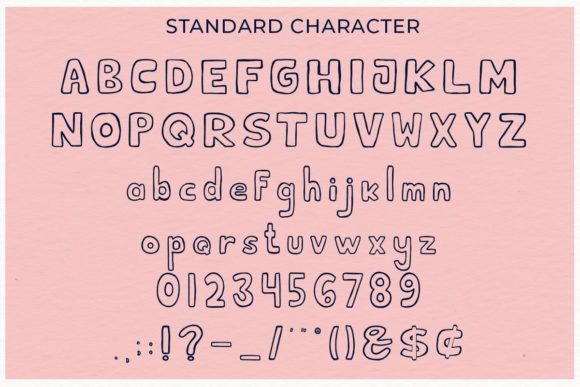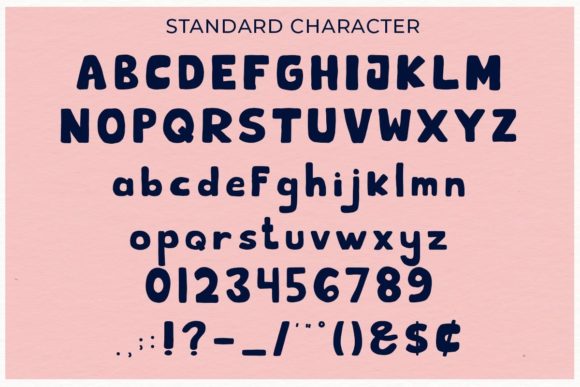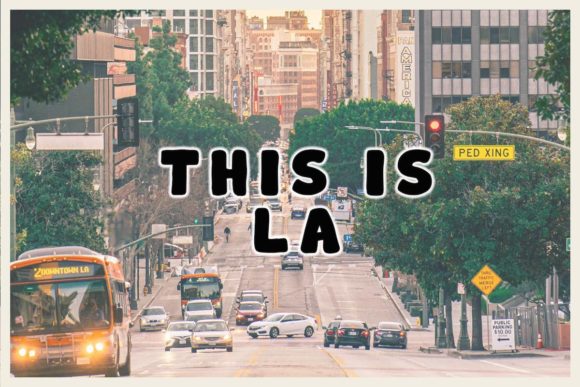
Introduction to Pizza & Soda Font
Imagine you’re working on a new design project, and you need a font that screams fun and bold. You’re brainstorming ideas, sipping your favorite soda, and suddenly, the perfect title pops into your head. But, you can’t quite find the right font to match your creative vision. That’s where the Pizza & Soda Font comes in – a game-changing design resource that’s sure to elevate your project to the next level.
This high-quality font is perfect for designers looking to add a touch of personality to their work. With its chunky characters and transparent background, it’s ideal for creating eye-catching titles, headlines, and banners that demand attention. And the best part? You can download it for free, making it an absolute must-have for any creative project.
Key Features of Pizza & Soda Font
- High-quality design resource perfect for creative projects
- Unique, hand-drawn style with a transparent background for easy layering
- Perfect for branding, logos, and creative projects requiring a playful touch
Honest Review: Pizza & Soda Font
I recently stumbled upon the Pizza & Soda Font, and I must say it’s a great addition to any design resource library. The font is a free download, which is always a bonus, and the quality is top-notch.
What works well is the font’s versatility. It’s perfect for a creative project that requires a fun, casual vibe. The font comes in a range of styles, from bold and playful to elegant and refined. The transparent background option also makes it easy to layer with other design elements.
Here are some of the font’s key features:
- Multiple styles to choose from
However, I did notice a few limitations ⚠️:
- The font may not be suitable for formal or professional projects
- The range of styles is limited compared to some other fonts
Overall, I’m impressed with the Pizza & Soda Font. It’s a great resource for designers looking to add a touch of whimsy to their creative projects. With its high quality and versatility, it’s definitely worth considering for your next design project. ✨
Pizza & Soda Font
Tips for Getting the Most Out of Pizza & Soda Font
Experiment with different font styles and weights to create visually appealing designs. Use the transparent background feature to add depth and interest to your designs.
Pizza & Soda Font is suitable for a variety of creative projects, including:
- Restaurant menus and branding
- Food and beverage packaging
- Advertising and marketing materials
- Graphic design and visual identity projects
Compared to Pizza & Soda Font, Great Vibes Font has a more whimsical and carefree feel, making it suitable for projects that require a touch of personality. When to use: Use Great Vibes Font for projects that need a fun, laid-back, or vintage feel.
Lato Font is a clean and elegant sans-serif typeface that’s perfect for creative projects, especially those with a sophisticated or luxurious aesthetic. It’s available for free download and features a transparent background, making it ideal for web design and digital interfaces.